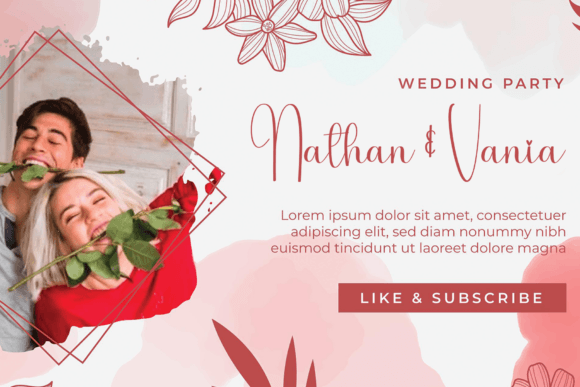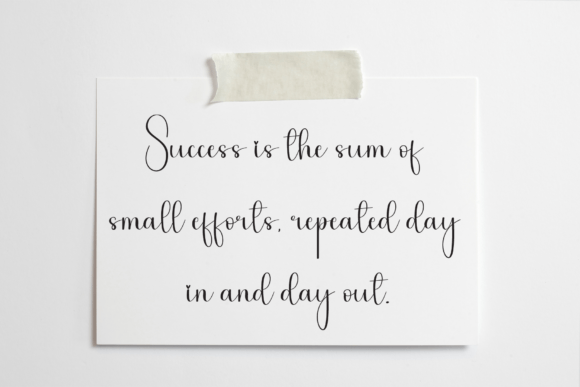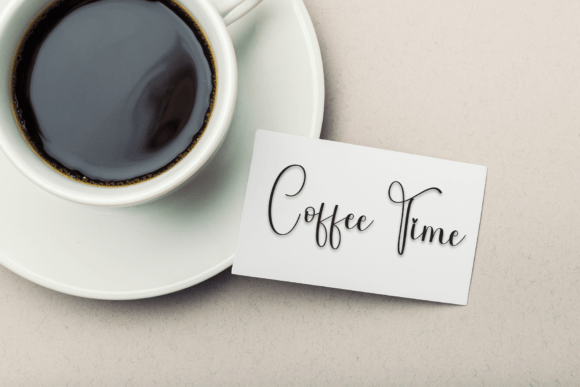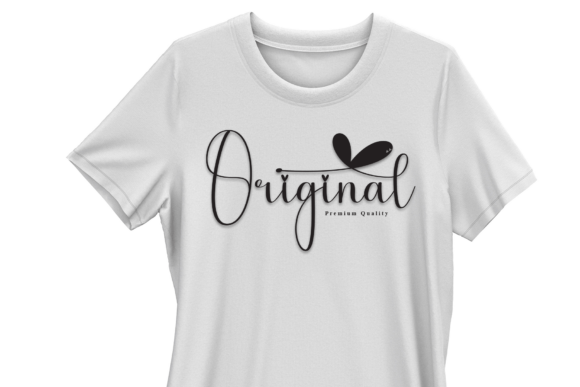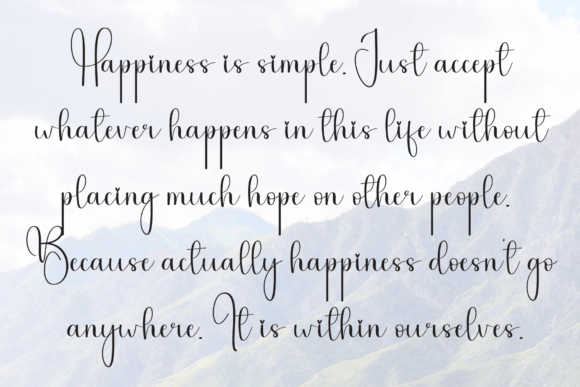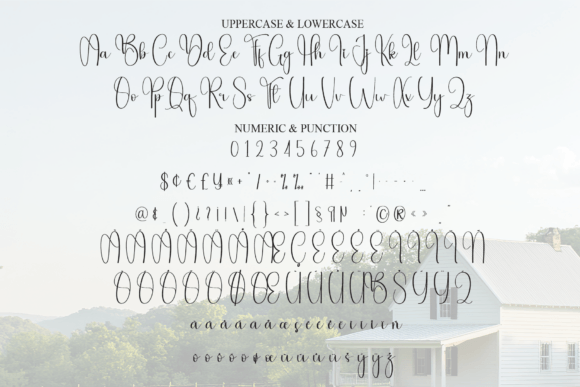
Introducing Farmhouse Font: A Charming Handwritten Delight
Are you looking for a font that adds a personal touch to your projects? Do you want to evoke a sense of warmth and friendliness in your designs? Look no further than Farmhouse Font, a charming handwritten font with cute heart-shaped endings that’s perfect for crafters, designers, and anyone looking to add a touch of whimsy to their work.
Farmhouse Font is a unique and charming handwritten font that’s designed to bring a sense of warmth and personality to your projects. With its cute heart-shaped endings, this font is perfect for adding a touch of whimsy and playfulness to your designs. Whether you’re working on a craft project, designing a logo, or creating a social media graphic, Farmhouse Font is the perfect choice.
Characteristics of Farmhouse Font
So, what makes Farmhouse Font so special? Here are just a few of its key characteristics:
- Handwritten style: Farmhouse Font has a warm, handwritten style that’s perfect for adding a personal touch to your projects.
- Cute heart-shaped endings: The font’s heart-shaped endings add a touch of whimsy and playfulness to your designs.
- Warm and friendly: Farmhouse Font has a warm and friendly style that’s perfect for creating a sense of approachability and personality in your designs.
- Versatile: This font is perfect for a wide range of projects, from craft projects and logos to social media graphics and more.
Uses for Farmhouse Font
So, what can you use Farmhouse Font for? The possibilities are endless! Here are just a few ideas to get you started:
- Craft projects: Farmhouse Font is perfect for craft projects like scrapbooking, card making, and DIY signs.
- Logo design: The font’s unique and charming style makes it perfect for logos and branding projects.
- Social media graphics: Use Farmhouse Font to add a personal touch to your social media graphics, including Facebook posts, Instagram stories, and more.
- Wedding and party decor: The font’s whimsical style makes it perfect for wedding and party decor, including invitations, signs, and more.
Here are a few tips for using Farmhouse Font in your projects:
- Pair with other fonts: Farmhouse Font pairs perfectly with other fonts, including serif and sans serif fonts.
- Use in combination with images: The font’s whimsical style makes it perfect for use in combination with images, including illustrations and photographs.
- Experiment with colors: Farmhouse Font looks great in a wide range of colors, from bright and bold to soft and pastel.